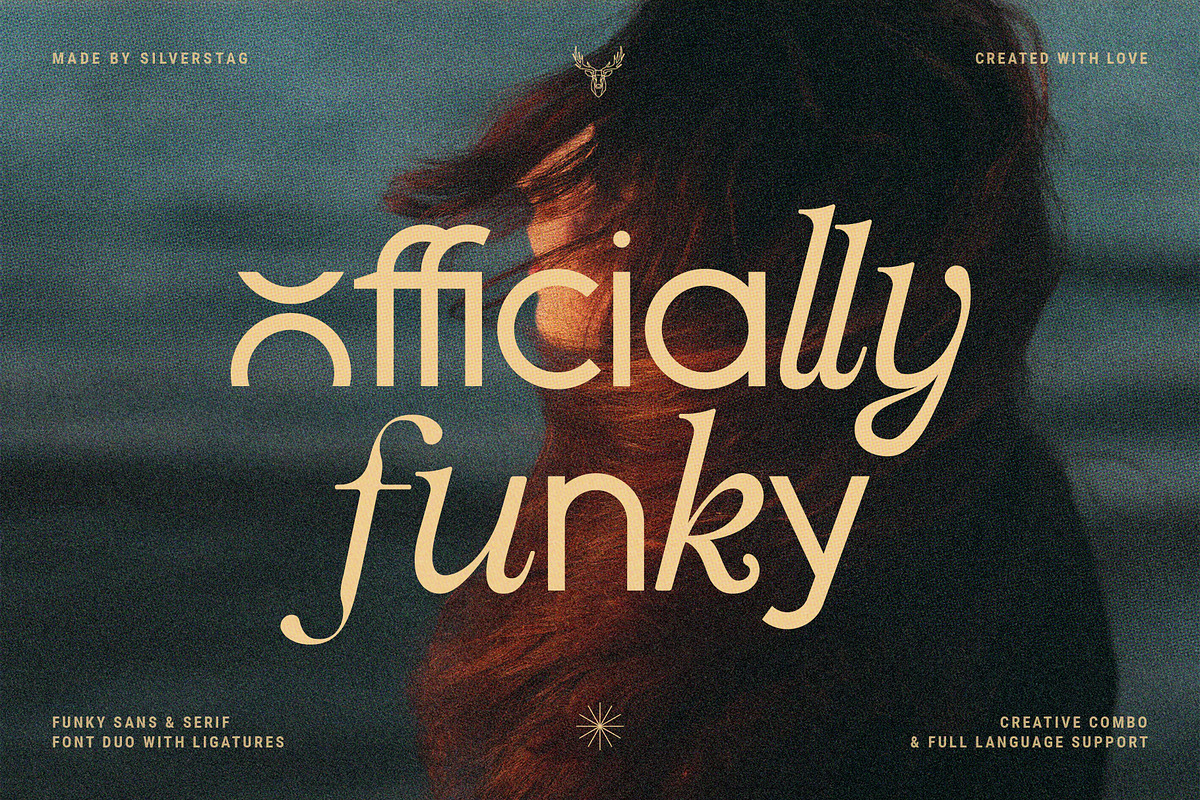
Officially Funky – Modern Font Duo
Introducing Officially Funky—a brand-new, boundary-pushing font duo that redefines what a typeface can do. Born from a vision to merge the sharpness of modern design with the soulful nostalgia of vintage aesthetics, this 2-in-1 powerhouse is designed for creators who refuse to compromise. Whether you’re building a bold brand identity, crafting eye-catching social media visuals, or designing for a digital platform, Officially Funky delivers unmatched versatility and instant character.
What Makes Officially Funky So Exceptionally Unique?
Unlike traditional fonts, Officially Funky is not just a single style—it’s a dynamic pair. The clean sans-serif base brings a crisp, contemporary look, while the alternate serif layer injects warmth, history, and artistic flair. With over 45 handcrafted ligatures, each character combination flows with rhythm and personality, turning ordinary text into visually compelling storytelling tools.
Every project using Officially Funky becomes instantly distinct. One word can look minimalist in the sans-serif form, then transform into a retro-inspired masterpiece with a few quick swaps—no extra design effort, just instant style. This dual functionality means you get more creative power with less work.
Features That Fuel Your Design Momentum
• 2-in-1 Design System: Seamlessly toggle between modern sans and retro-inspired serif styles to match your project’s mood.
• 45+ Stylish Ligatures: Smooth, professional connections between letters add elegance and reduce visual clutter.
• Full Multilingual Support: Includes Latin, extended Latin, punctuation, numerals, and diacritical marks—perfect for global projects.
This isn’t just a font. It’s a complete design ecosystem built to inspire movement, not just static text.
Perfect for Any Creative Project That Demands Attention
Designed with real-world use in mind, Officially Funky thrives across a wide variety of applications:
• Brand Identity & Logo Design: Create a unique look that feels both fresh and timeless.
• Social Media Graphics: Stand out in crowded feeds with text that’s bold, playful, and instantly recognizable.
• Event Flyers & Posters: Add dynamic energy to promotional materials with its expressive character range.
• Editorial Layouts & Magazines: Use the ligatures and alternates to enhance the rhythm of your written content.
Why Designers Are Already Obsessed
“What sets Officially Funky apart is its duality. It feels both futuristic and vintage at once—like a music video from 2025, set in the 1980s.” — Design Influencer, @TypeScene
Users love how quickly they can elevate their projects. The instant visual impact, combined with ease of use, makes this font ideal for both beginners and experienced designers. You don’t need to be a typography expert—just open it, type, and let the personality do the rest.
It’s the rare font that works everywhere—without compromise.
Visualize the Vibe: Explore the Preview Images
Check out the preview images to see Officially Funky in action. Watch as simple text transforms with alternate styles, how it holds up in different sizes, and how the ligatures create a flowing, organic rhythm. The visual journey is part of the experience—the font is designed to be just as fun to look at as it is to use.
Bring Your Vision to Life—Design with Bold, Playful Confidence
Officially Funky isn’t for projects that blend in. It’s for creators who want to leave a mark. It’s for designers who believe typography should speak, not just sit.